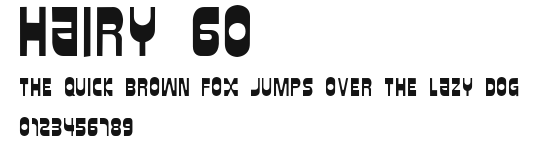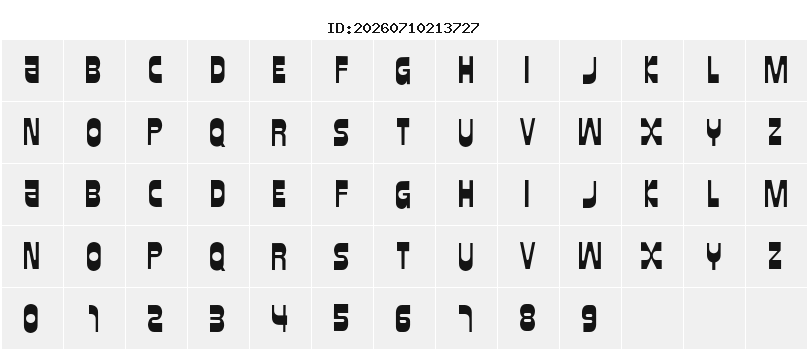
hairy 60 Preview
• Font Name: hairy 60
• Full Font Name: hairy 60
About hairy 60.ttf
hairy 60.ttf is a modern, elegant sans-serif font designed for ultimate readability and visual harmony. Perfect for branding, headlines, web design, and print materials.